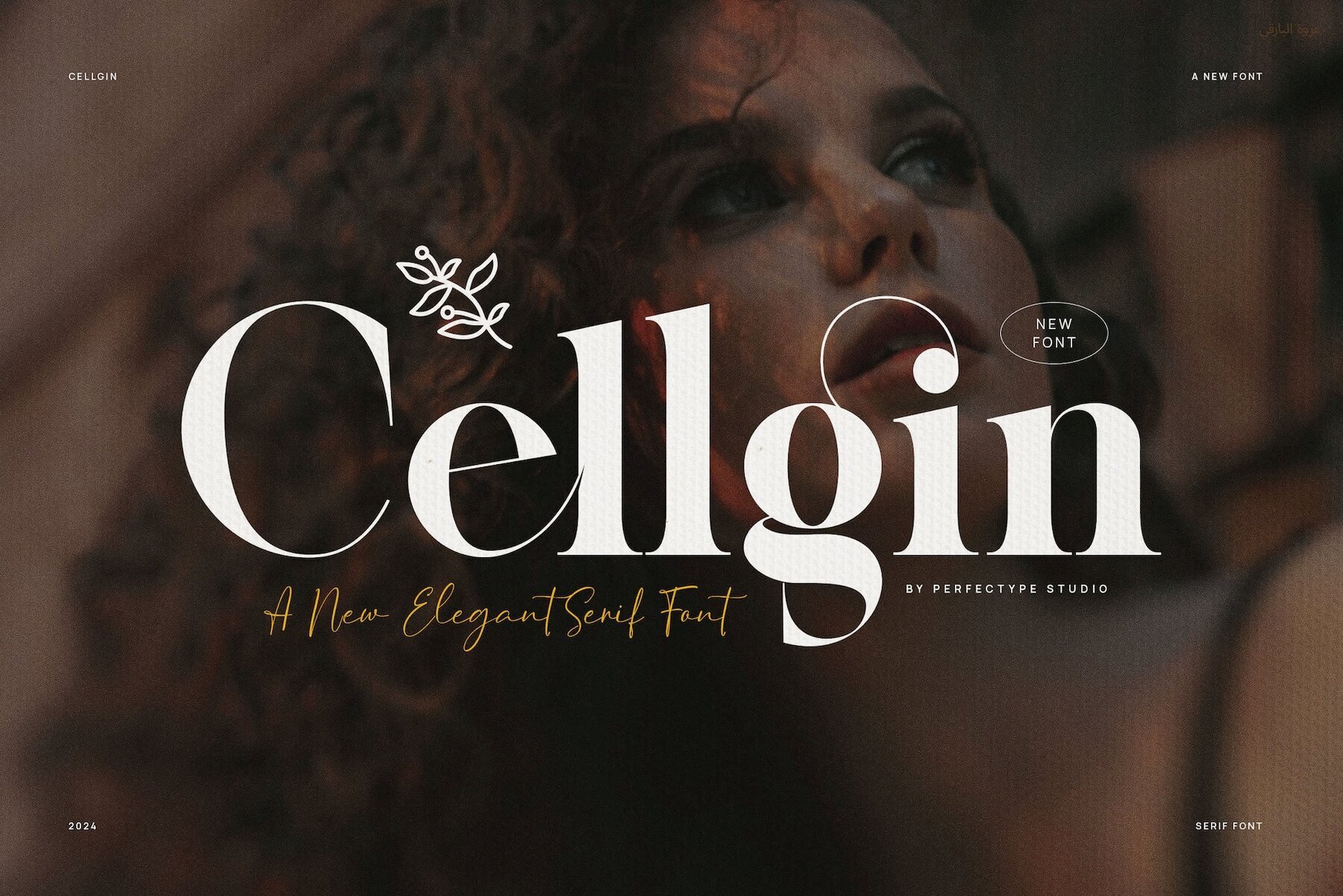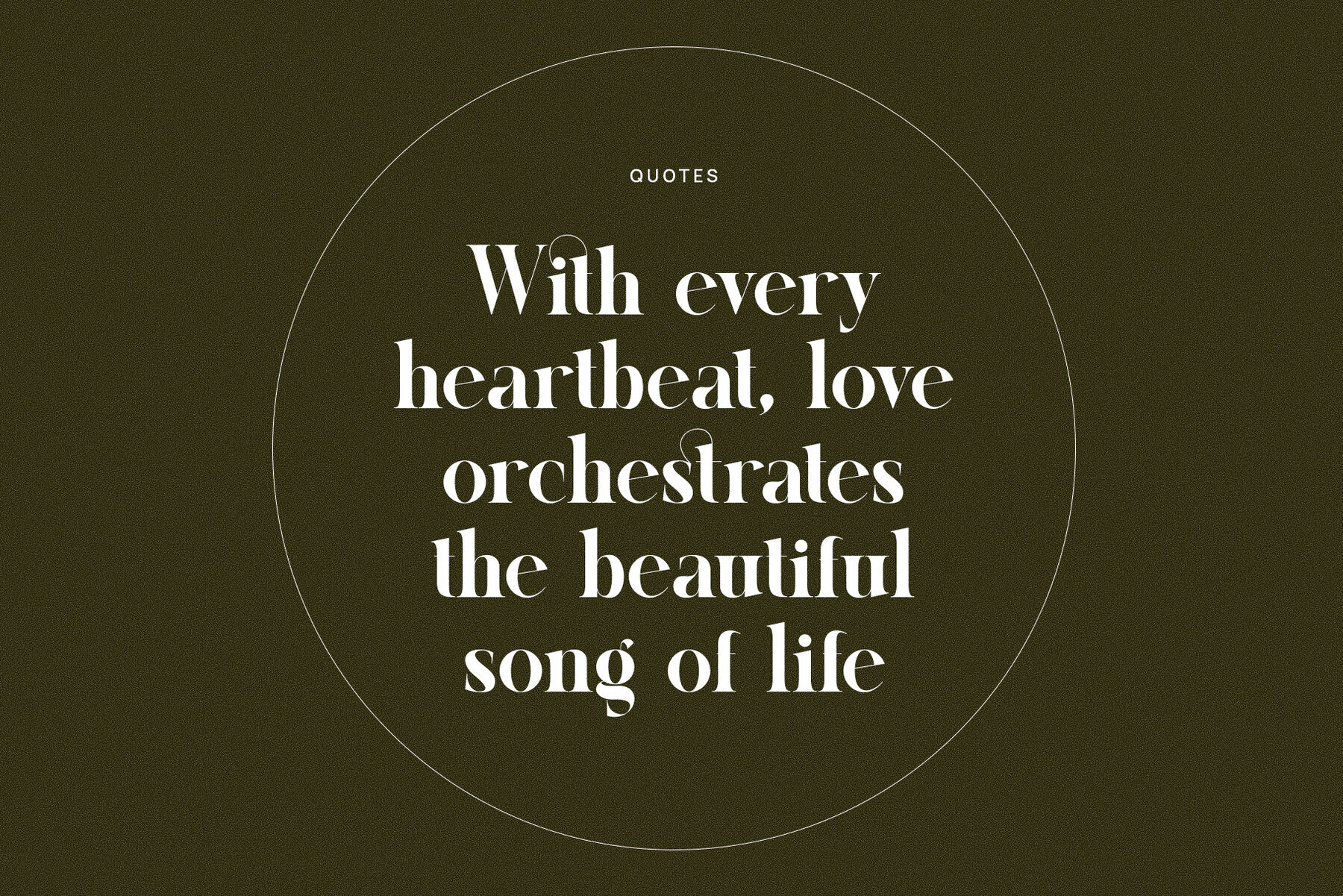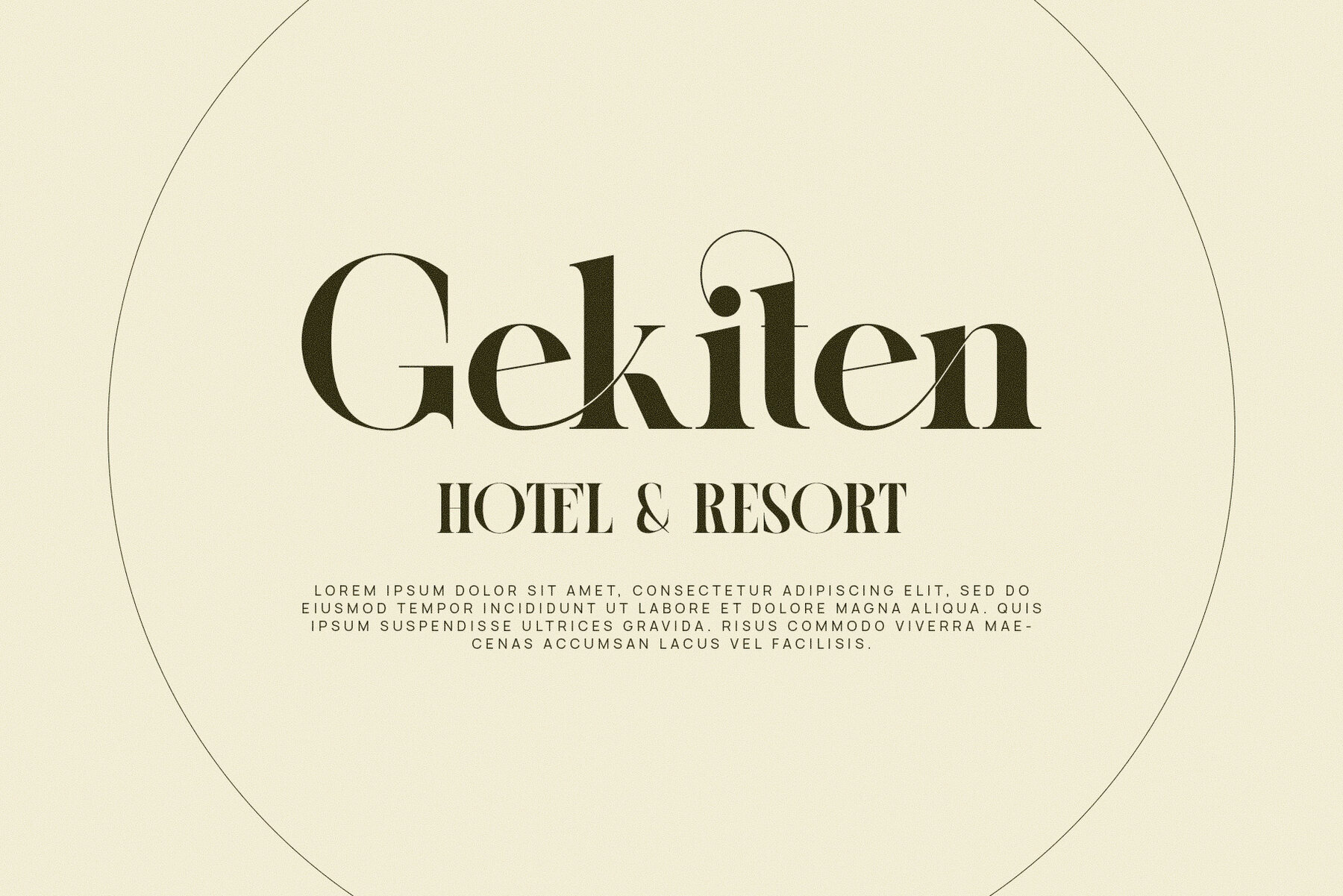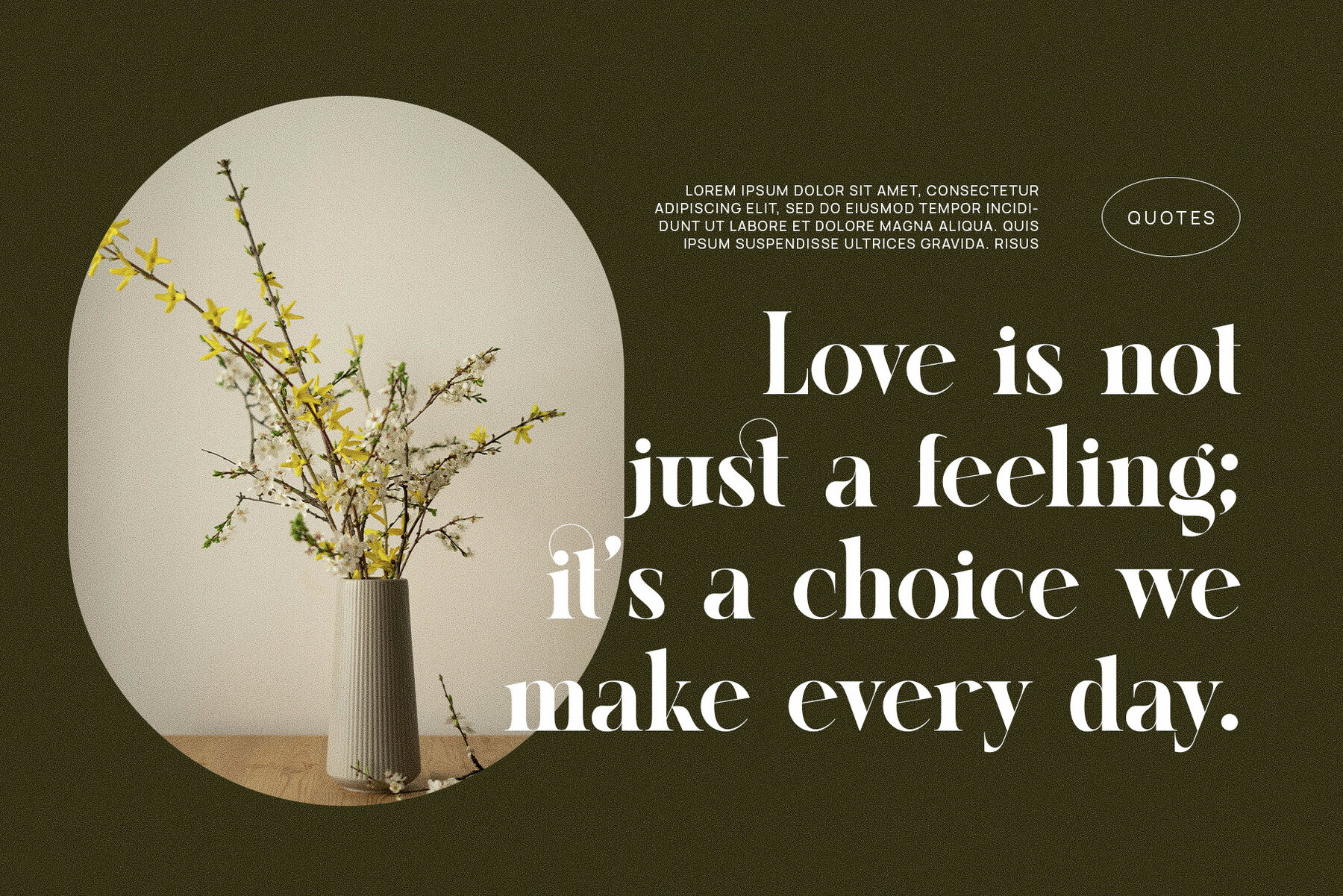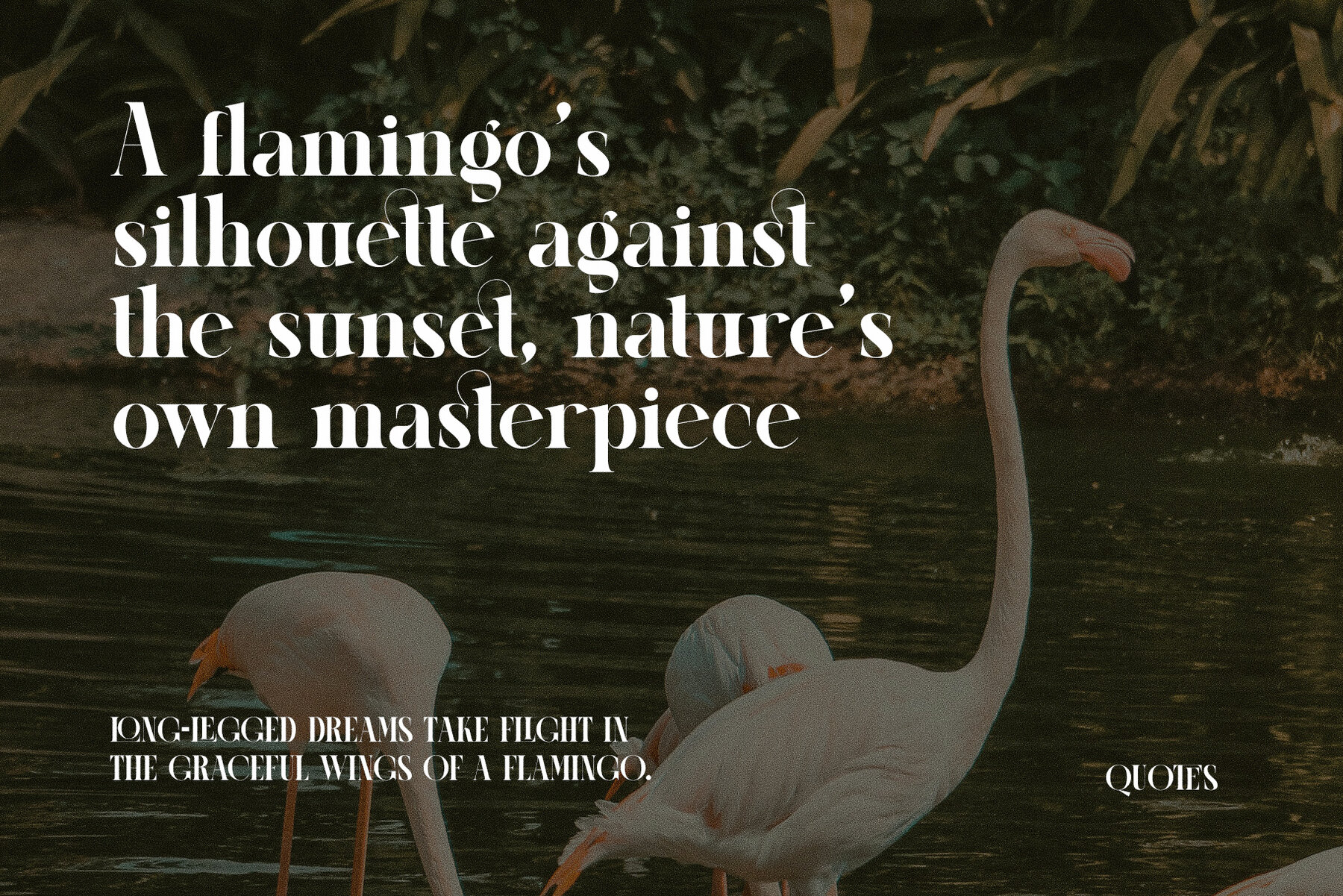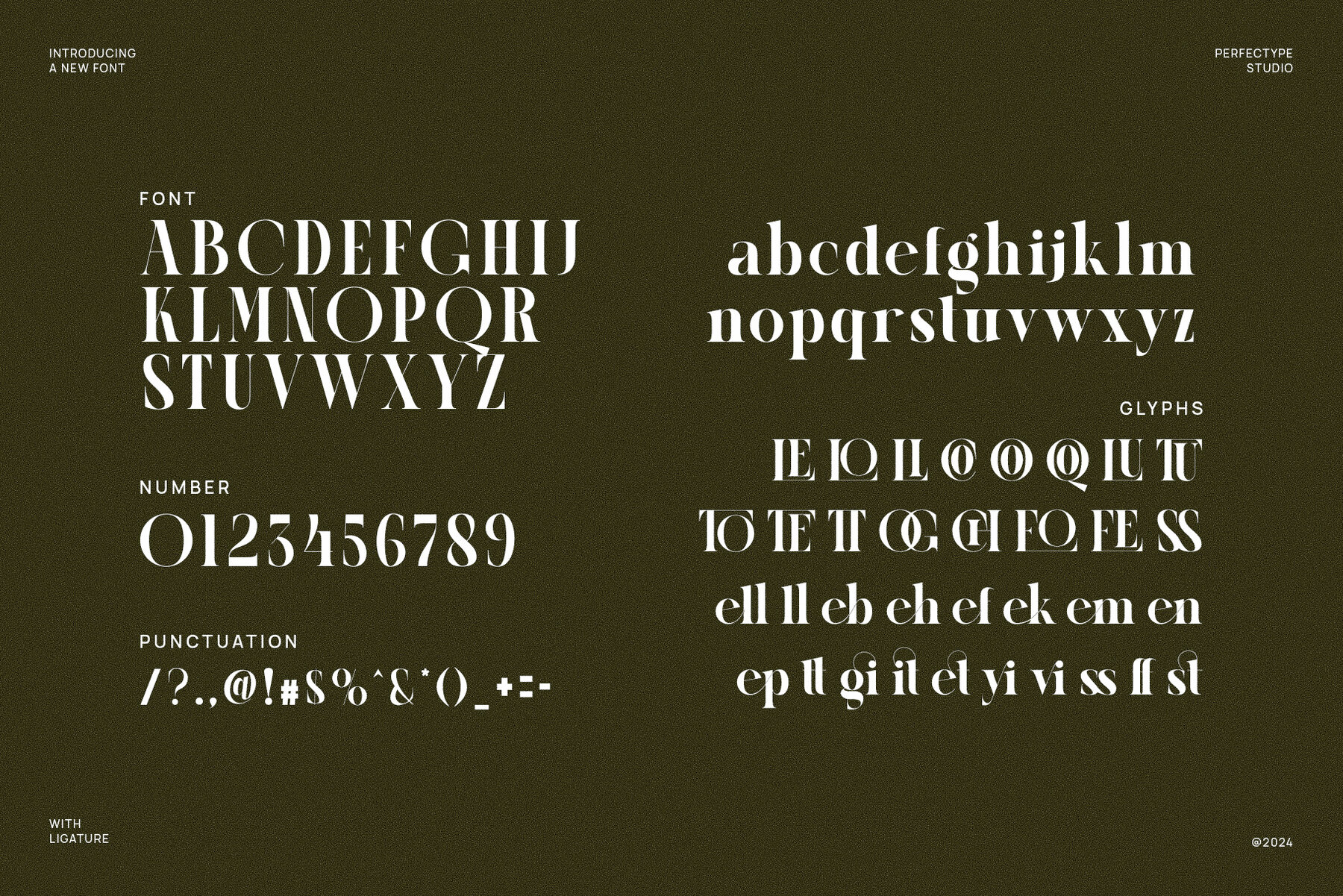
Cellgin Font
Cellgin
Cellgin Elegant Serif Font merges modern design with classic elegance, offering designers a sophisticated typeface that enhances any project. Its beautifully crafted serifs and unique letterforms deliver a refined aesthetic suitable for high-end branding. Versatile and flexible, Cellgin includes well-designed ligatures and alternate characters, allowing for custom typography that enhances readability and visual appeal.
Ideal for logo design, branding materials, and premium packaging, Cellgin's sleek, professional appearance ensures strong performance in both digital and print media. Whether designing a luxury boutique logo, an upscale food label, or a modern editorial layout, Cellgin meets the demands of any sophisticated project. Its timeless elegance is particularly suited for fashion, lifestyle, food, and boutique industries, maintaining style and legibility across various applications.
The clean lines and balanced structure of Cellgin ensure excellent legibility, while its unique ligatures add an extra layer of refinement. An indispensable tool for designers, this font is perfect for creating upscale logos, websites, and promotional materials that require a sophisticated and memorable impression.